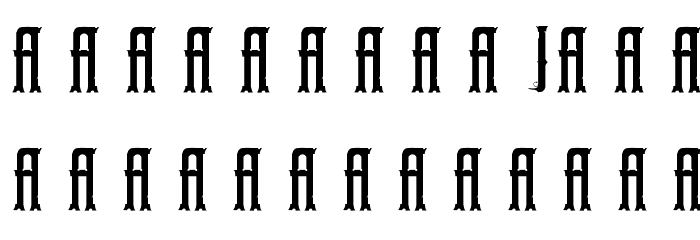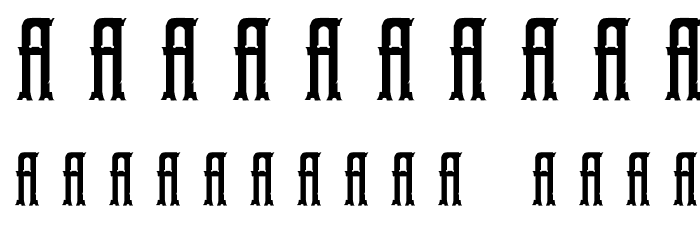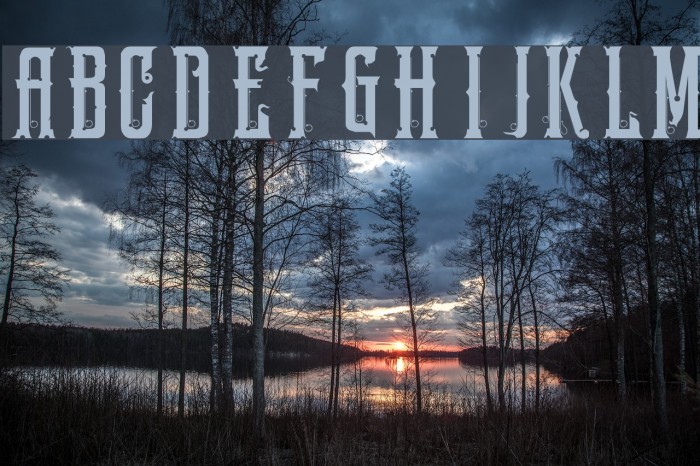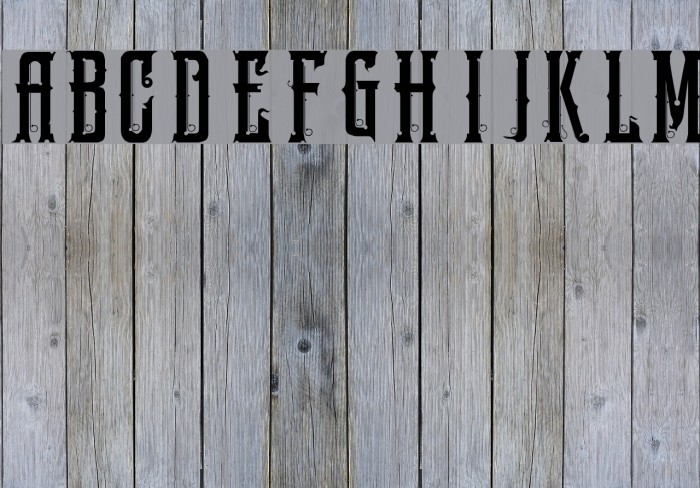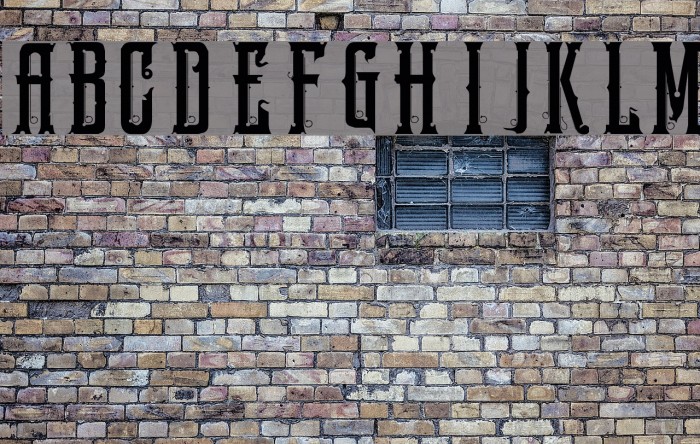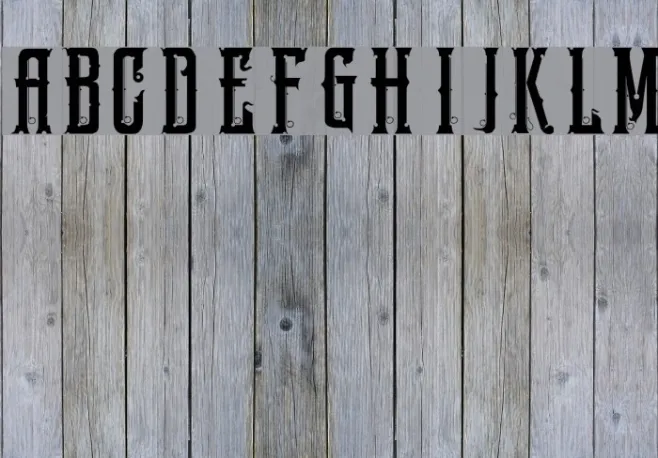
sg Font
This font features a bold and decorative style with intricate details that add a touch of elegance and sophistication. The uppercase letters are characterized by their tall, narrow forms with sharp serifs and ornamental swirls, giving them a distinct and eye-catching appearance. The overall design is reminiscent of vintage or Victorian-era typography, making it ideal for projects that require a classic yet ornate aesthetic. The font's unique embellishments make it stand out, while its consistent stroke width ensures readability.
A bold, decorative font with vintage-inspired ornamental details.
- Proposed Projects: Ideal for vintage-themed posters, invitations, branding, and decorative signage.
- Overall Style: Vintage